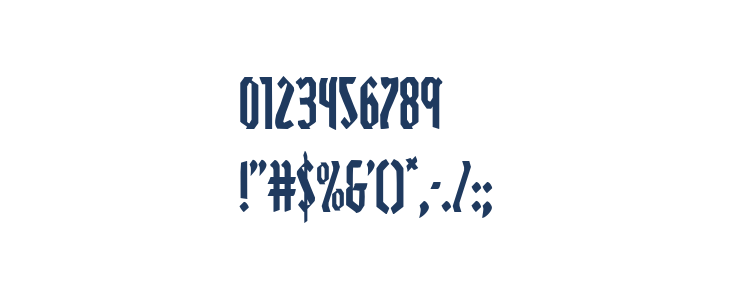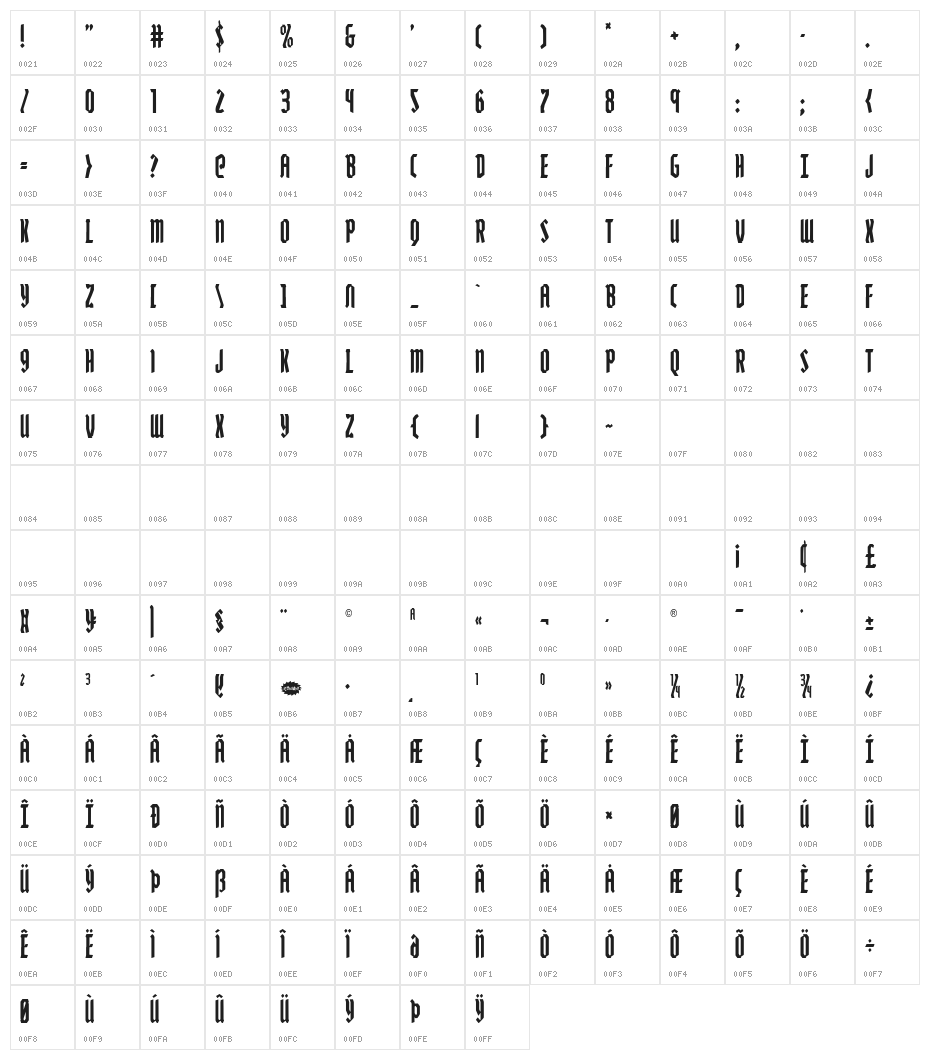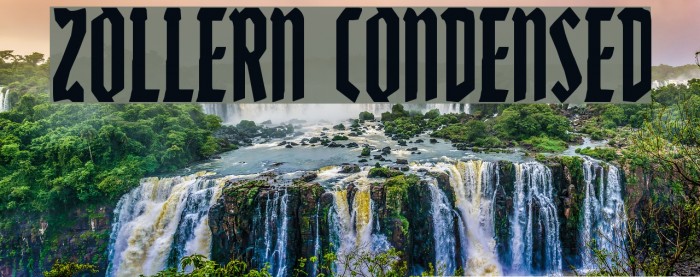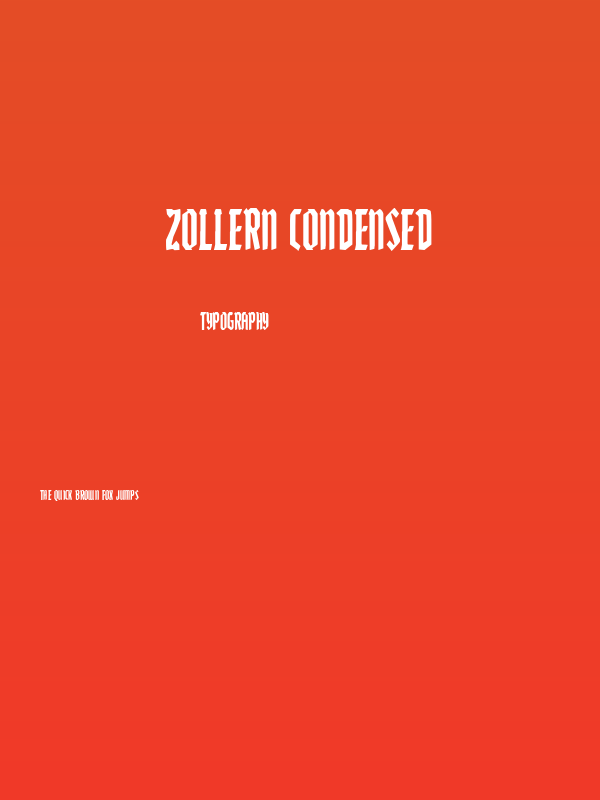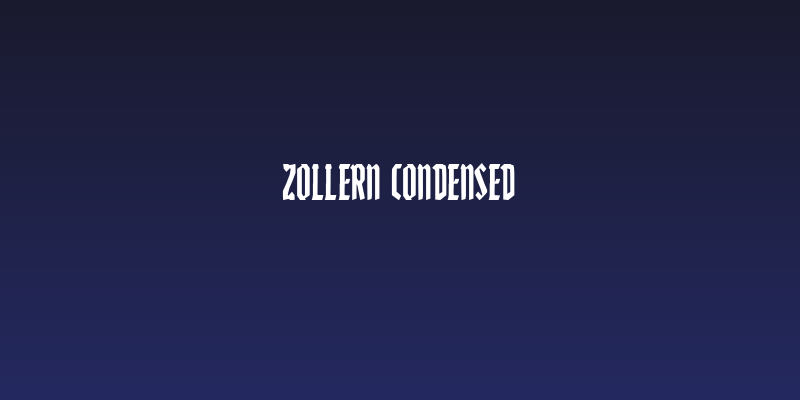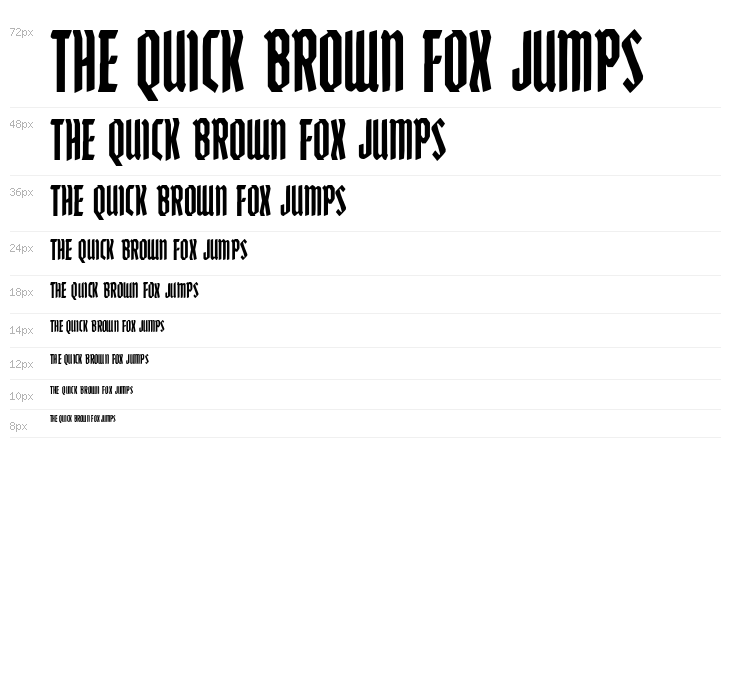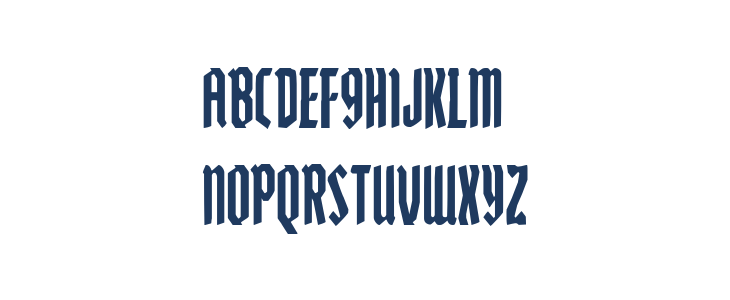
Zollern Condensed Font
Zollern Condensed Description
This font features a bold and striking design with a condensed structure, characterized by sharp, angular lines and a strong presence. The uppercase letters are particularly prominent, with a Gothic influence that gives it a historic and authoritative feel. The numerals and special characters maintain the same boldness and angularity, ensuring consistency across all characters. The overall aesthetic is reminiscent of traditional blackletter styles, yet with a modern twist that makes it suitable for contemporary use.
| Overall Style | Modern Gothic |
| Proposed Projects | Ideal for use in branding, posters, and headlines where a strong, historical, or authoritative presence is desired. |